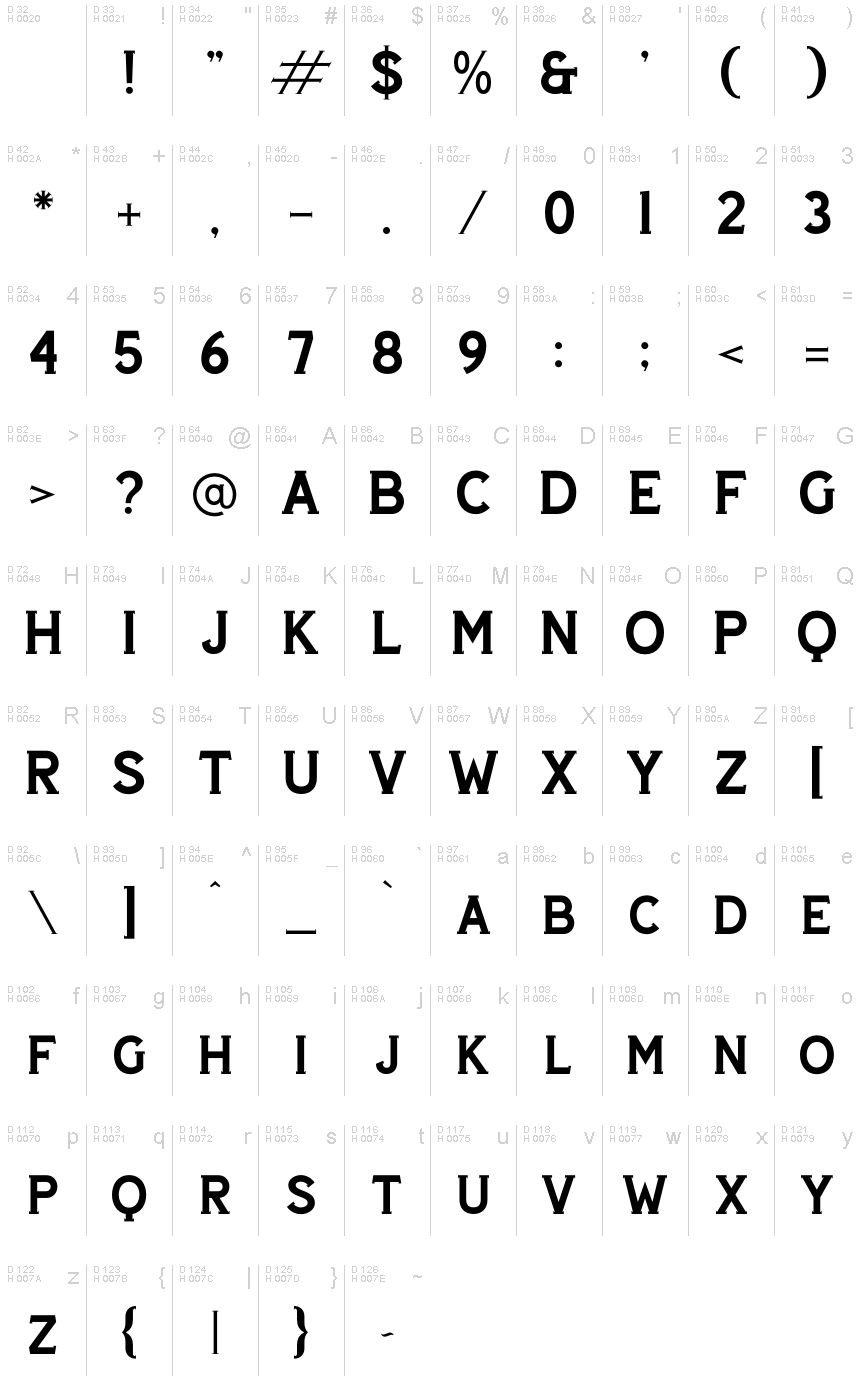
DEMITHS
Demiths, a striking display font crafted by Storytype Studio, embodies a captivating retro aesthetic. With its bold, confident strokes and distinctive character forms, this font exudes a sense of vintage allure and timeless style. The robust weight and sharp edges lend an air of authority and sophistication, making it a compelling choice for projects seeking to evoke a nostalgic, yet modern, sensibility.
Demiths' versatility shines in a range of applications, from attention-grabbing headlines and impactful logos to vintage-inspired branding and packaging designs. Its bold presence makes it a natural fit for bold, attention-grabbing statements, while its retro charm lends itself well to projects aiming to capture a sense of heritage and craftsmanship. Whether you're crafting a retro-inspired poster, designing a memorable t-shirt graphic, or seeking to infuse your brand with a touch of vintage flair, Demiths by Storytype Studio is a font that is sure to leave a lasting impression.